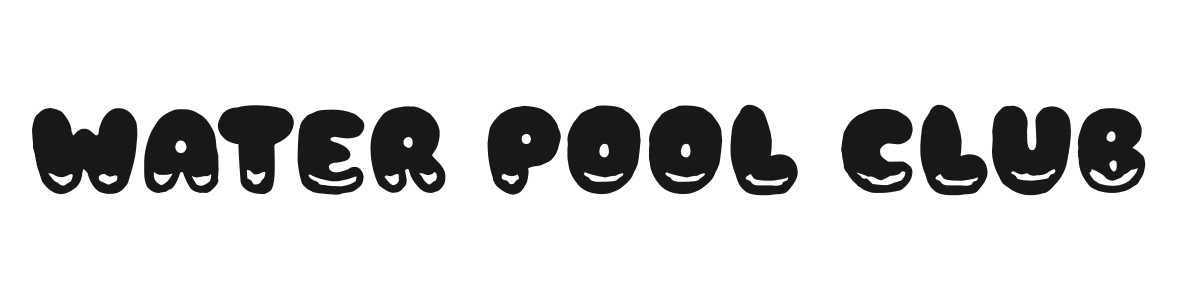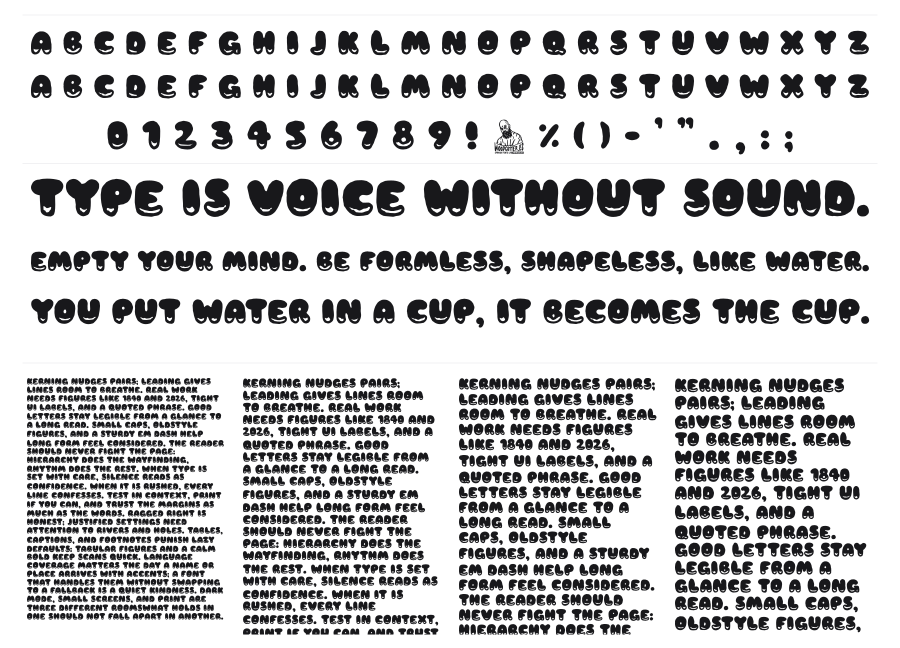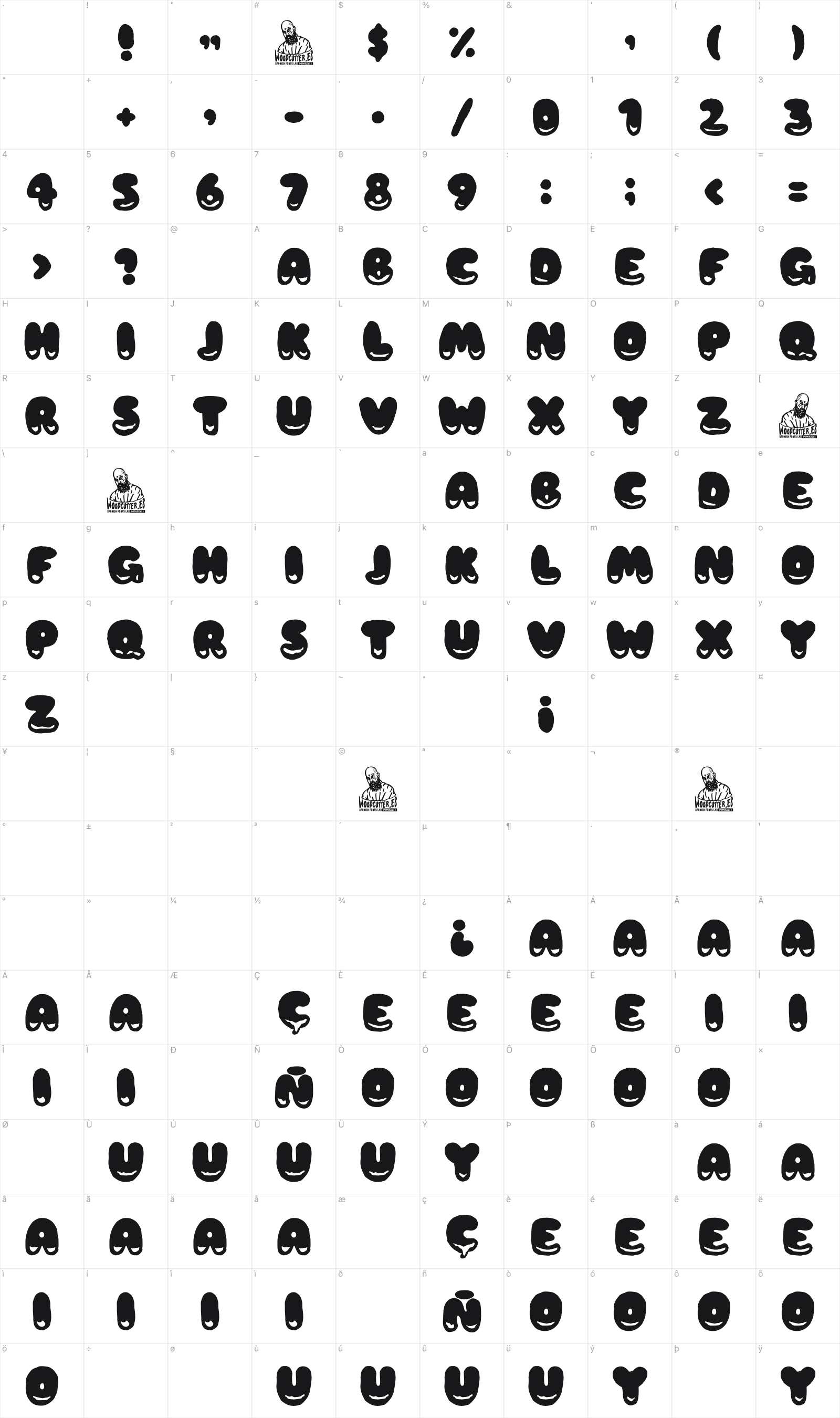
Water Pool Club
Water Pool Club is an ultra-bold bubble font with inflated, rounded characters that look ready to float. The letters are packed so tightly that their counters collapse into decorative notches, giving each glyph a distinctive pillowy silhouette rooted in 1970s groovy display lettering. It works best big, where its exuberant weight reads as pure fun.